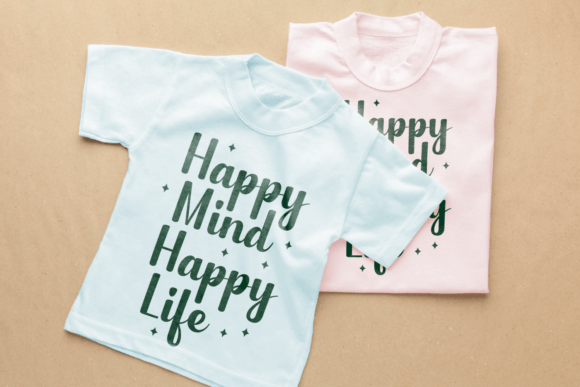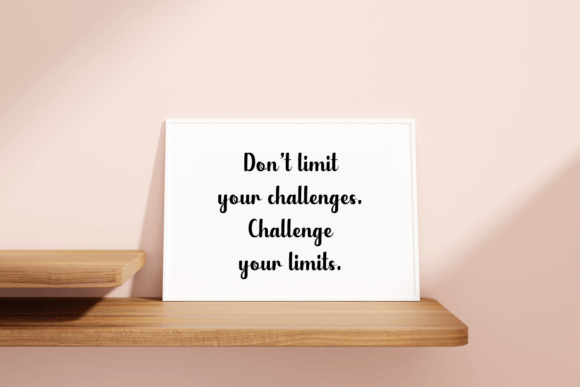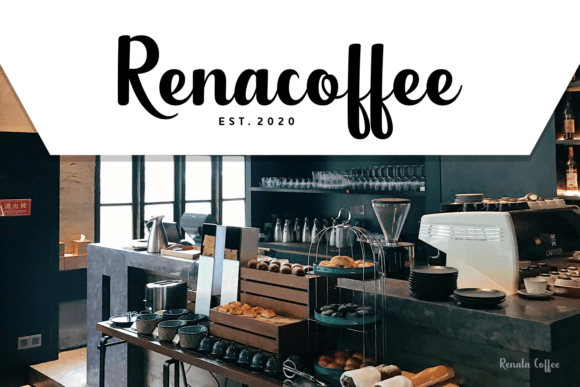
Introduction to Kiranti Font
Kiranti is a bold script font that features flowing, cursive letters with a strong presence.
It’s perfect for adding a stylish and energetic touch to any design The letters are easy to read, making it great for headlines, invitations, and personal branding.
Key Features of Kiranti Font
Why Choose Kiranti Font?